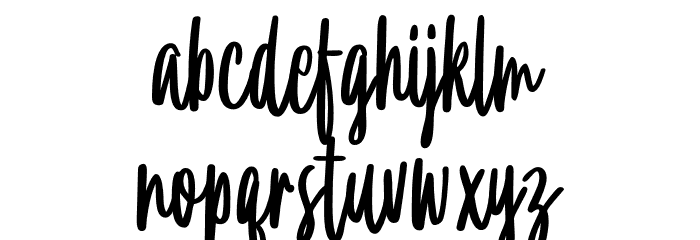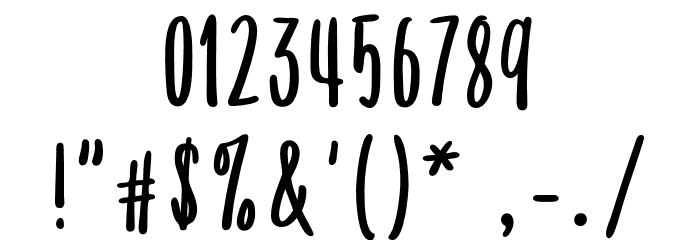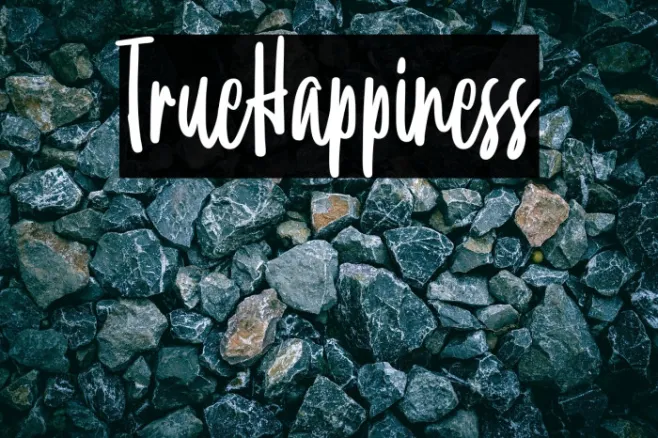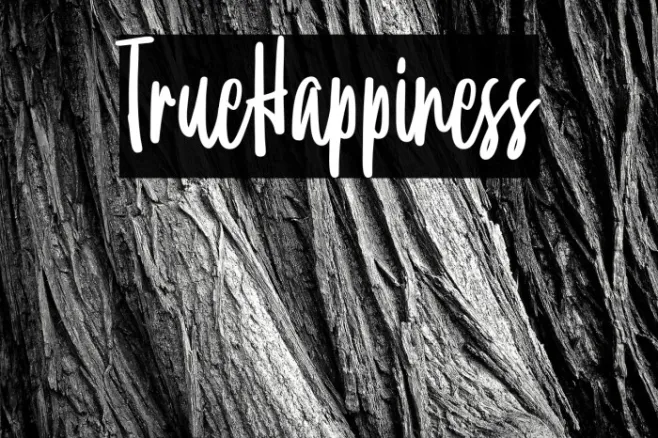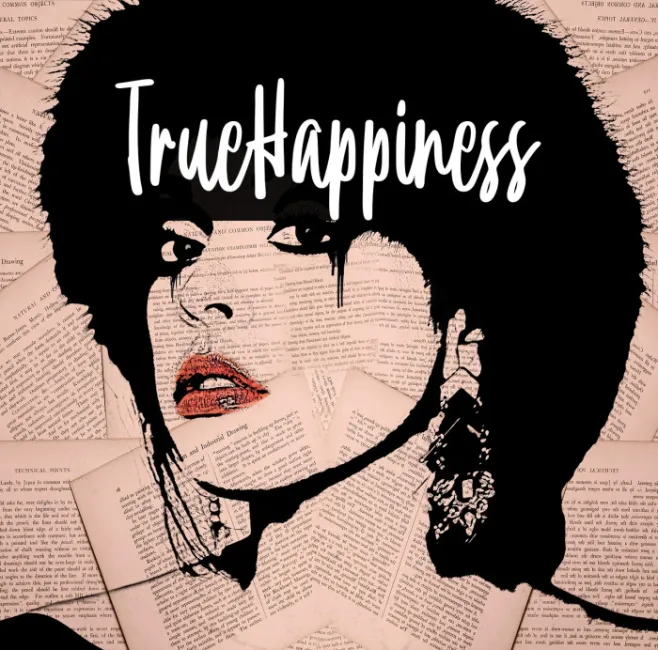
TrueHappiness Font
This font features a playful and energetic handwritten style, characterized by its tall, narrow letters with a slight slant. The strokes are smooth and flowing, giving it a casual and friendly appearance. The uppercase letters are bold and prominent, while the lowercase letters maintain a consistent style with a slightly more relaxed form. Numbers and special characters follow the same aesthetic, ensuring a cohesive look across all text. The font's unique charm lies in its ability to convey a sense of spontaneity and creativity, making it ideal for projects that require a personal touch.
A playful, handwritten font with tall, narrow letters and smooth strokes.
- Proposed Projects: Ideal for greeting cards, invitations, social media graphics, and branding materials that require a personal and creative touch.
- Overall Style: Casual, Playful
- Use Case: Headlines, Logos, Social Media